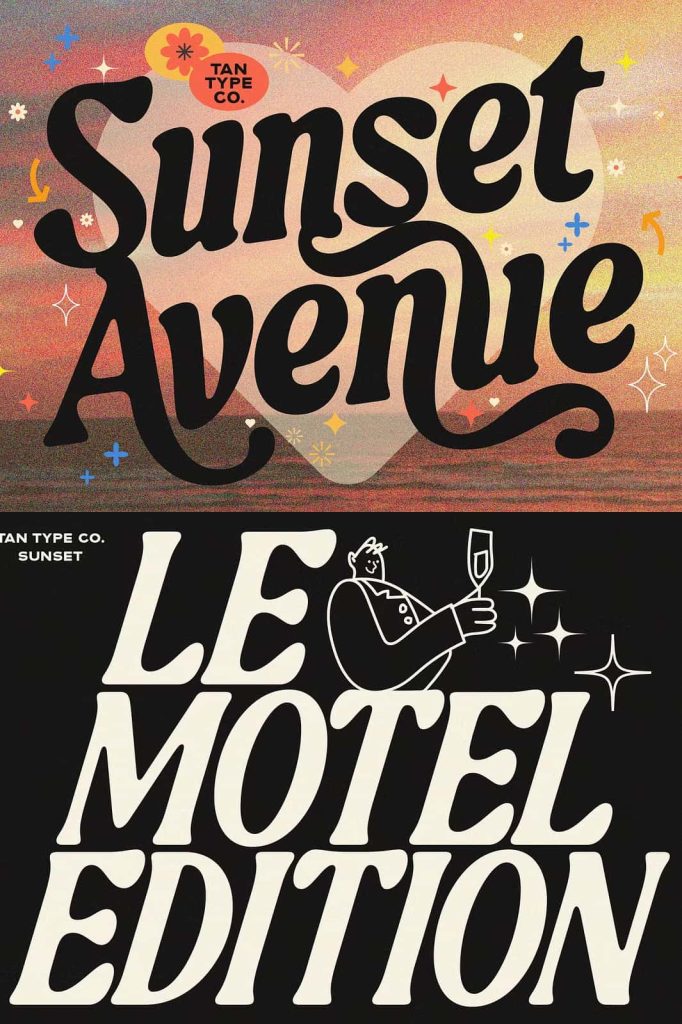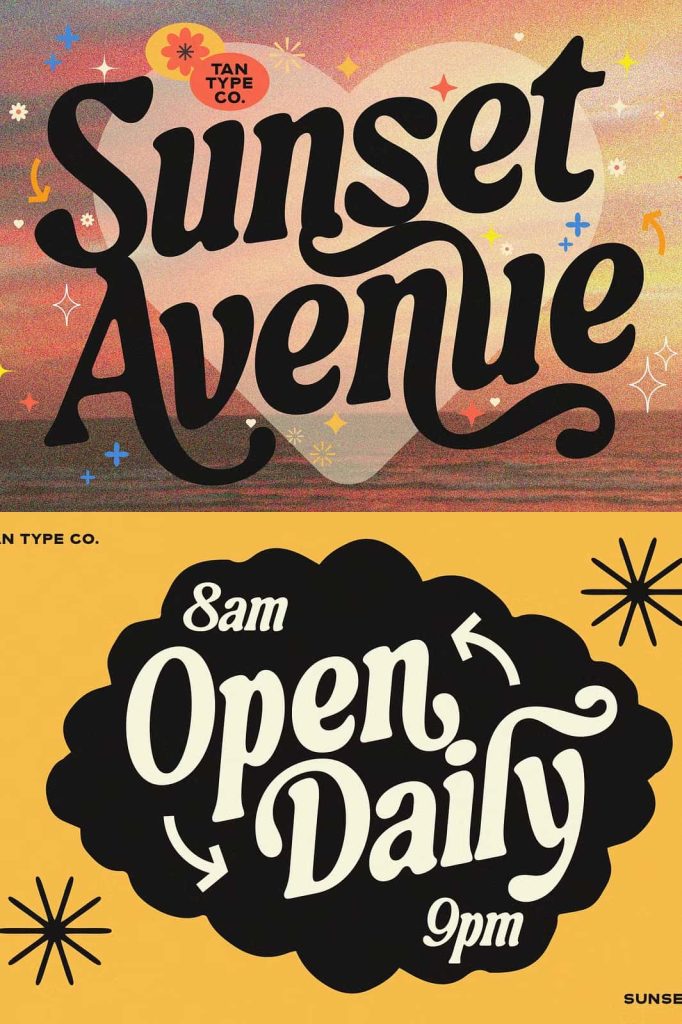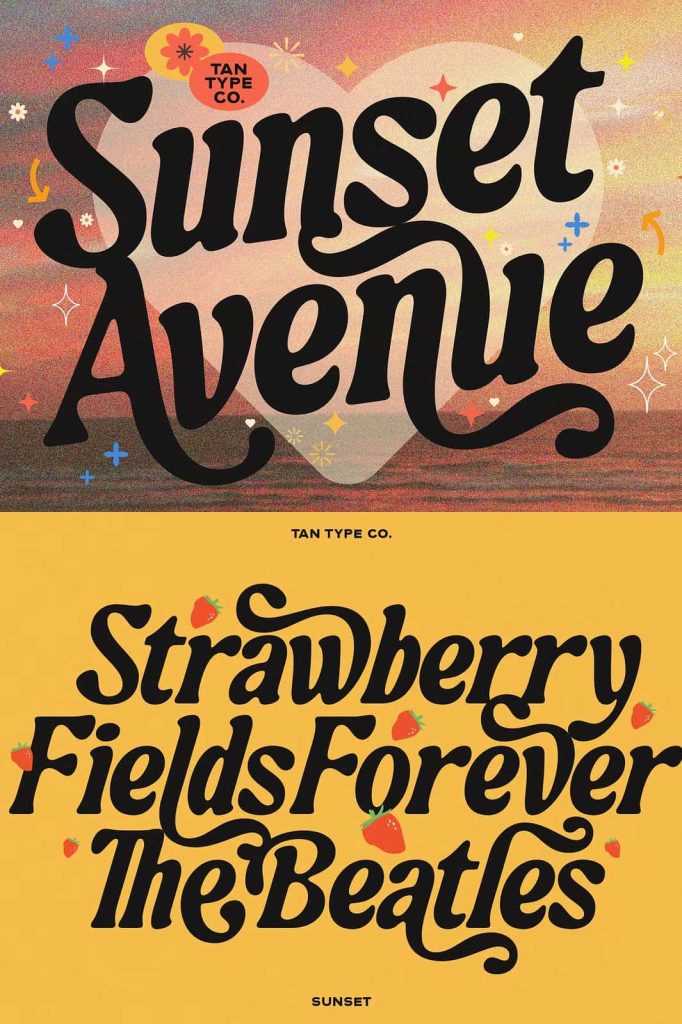
Say hello to Sunset, a playful summer script font that feels just like the last golden hours on the beach — warm, carefree, and unforgettable. Inspired by the sweetness of lingering summer days, Sunset brings together bold strokes and flirty curves in a way that’s both charming and effortlessly fun.